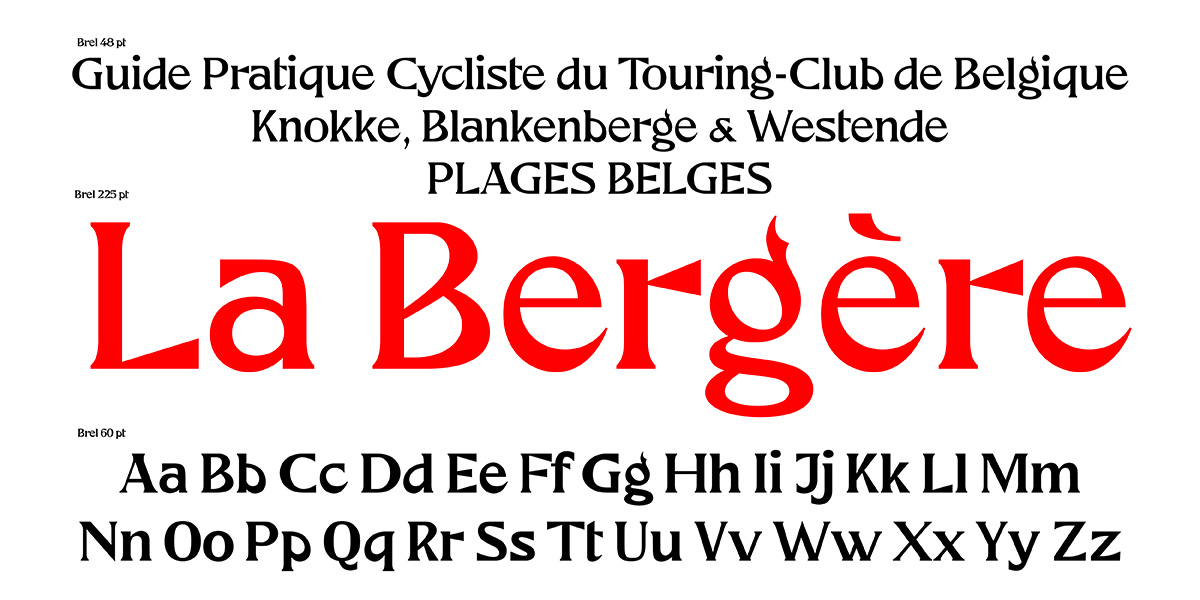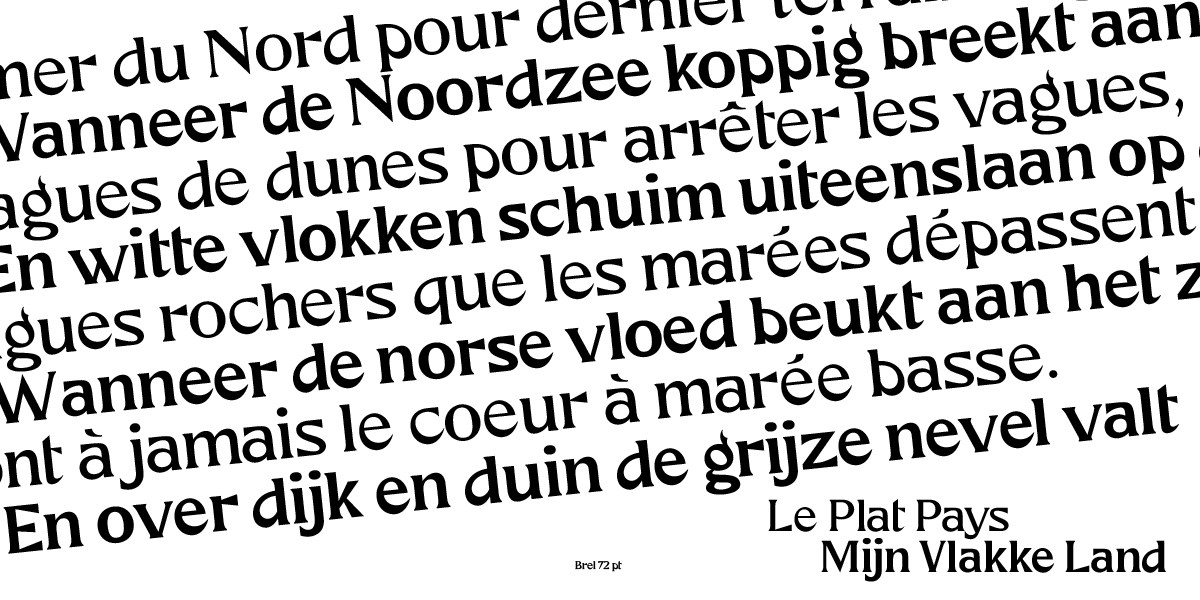
By Studio Type
Welcome Brel, our new Typeface of the Month. Brel, a unique and quirky new serif typeface with Belgian roots, is the first official release by the recently established Belgian font foundry studio Type.
Brel is part of Typo Belgiëque, a practice oriented scientific research and type design project examining the visual design identity of Belgium in the nineteenth and twentieth century that breathes new life into Belgium’s historical typeface families.
Brel is a respectful contemporary interpretation of an extraordinary metal display typeface that originates from the type collection of Fonderie Typographique A. Vanderborght & Dumont, a 19th century Belgian type foundry in Brussels. This new and exclusive font not only reinvigorates this historic typeface. Brel was developed following the most recent variable font technologies, to guarantee a high level of legibility and optimal use for dynamic, responsive web and screen typography for contemporary use in every form of digital publishing and media design.
The atypical, but original, design interpretation of the lowercase “a” and “g” as main features make Brel stand out from other seriffed font families. Crafted with a careful eye for detail, this extraordinary joyful typeface is suitable for editorial publications, visual identities, advertising or packaging design. Although Brel would initially function best as a display font, it also works surprisingly well in body texts. Brel hopes to become an invaluable, eccentric addition to the font libraries of many a designer.
Foundry: studio Type
Designer: Jo De Baerdemaeker
Styles and Weights: Regular and Bold